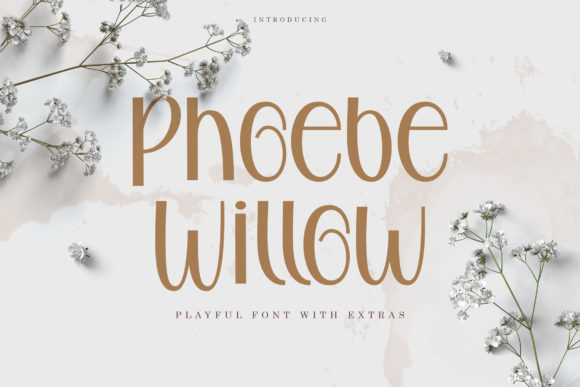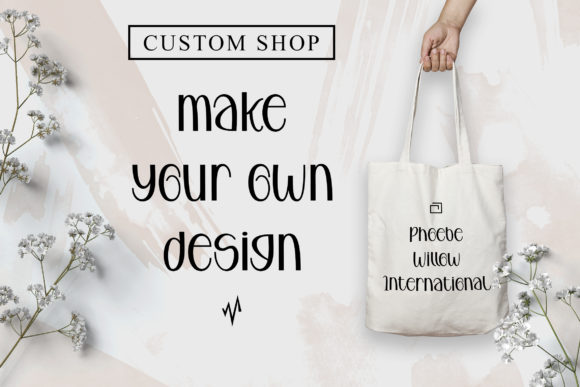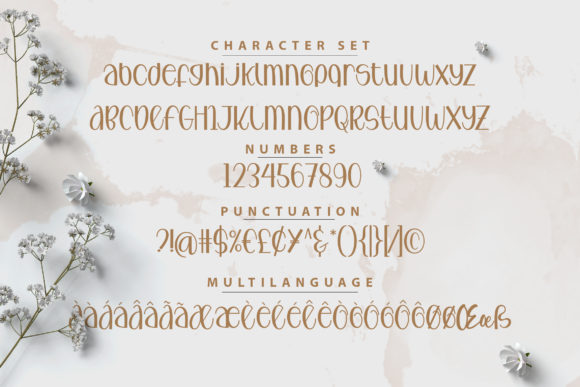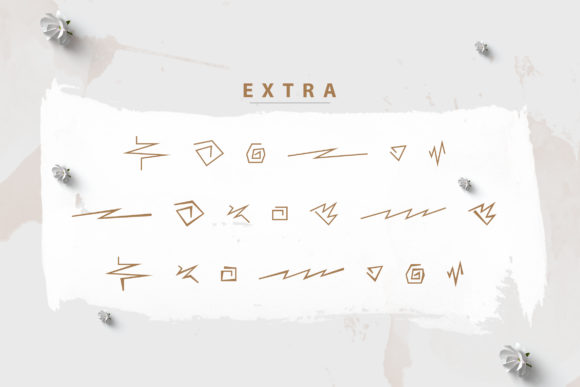
Phoebe Willow Font
About Phoebe Willow Font
Phoebe Willow is a sweet, soft hand-lettered script. The playful rounded characters make it the perfect font for creating stunning crafting art and DIY-projects! It comes packed with PUA encoded extras, that will allow you to add a decorative touch within seconds. Get inspired by its authentic feel and use it to create gorgeous wedding invitations, beautiful stationary art, eye-catching social media posts, and cute greeting cards.